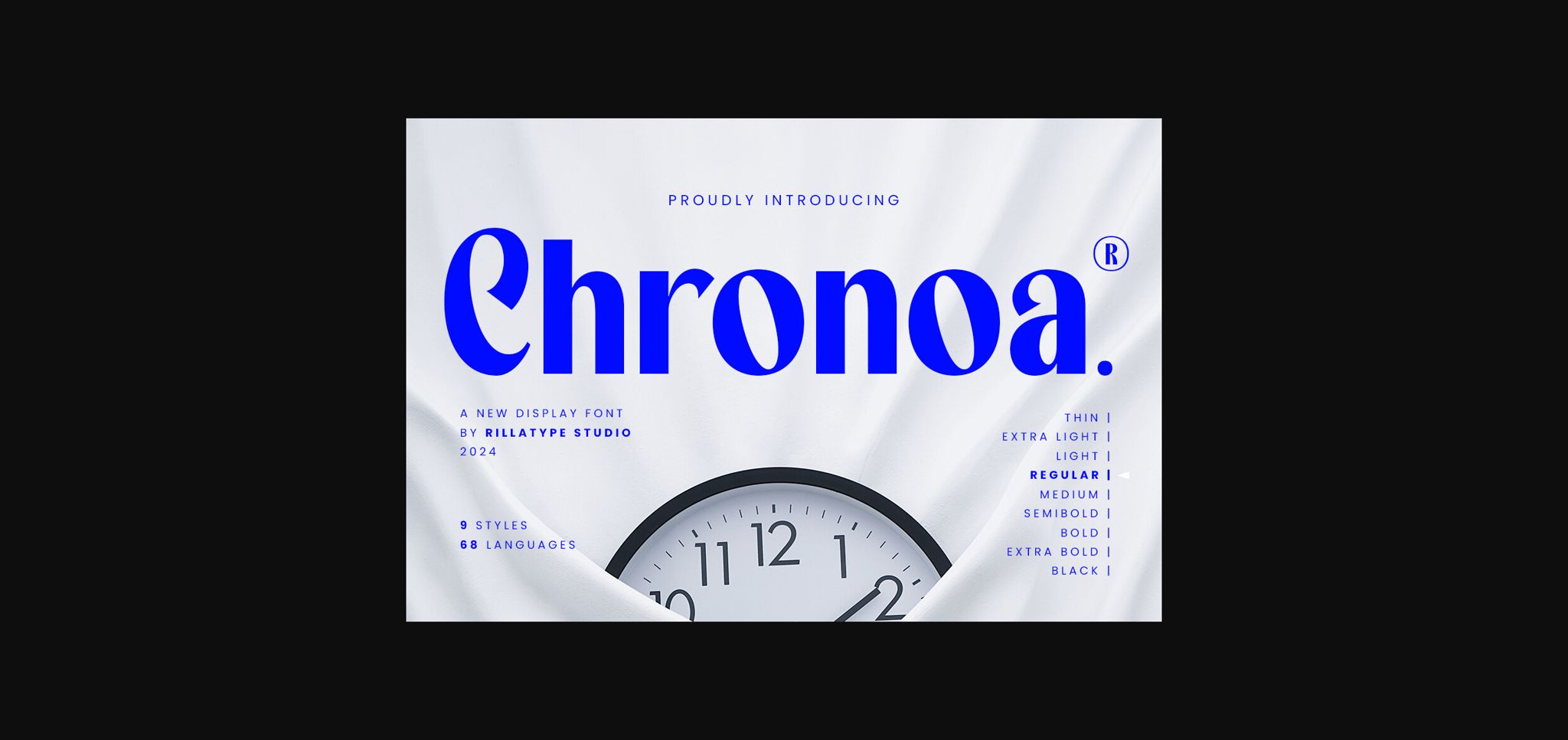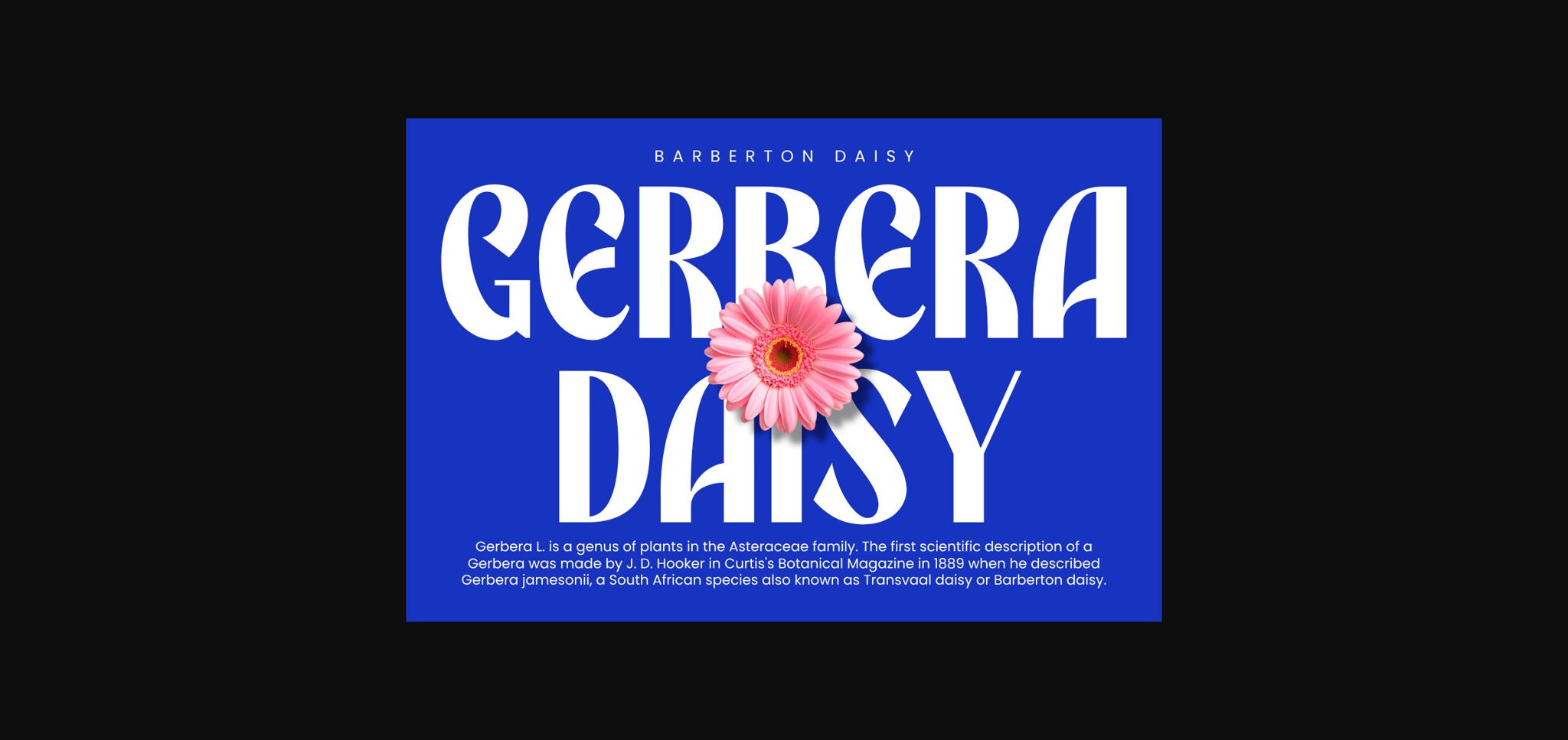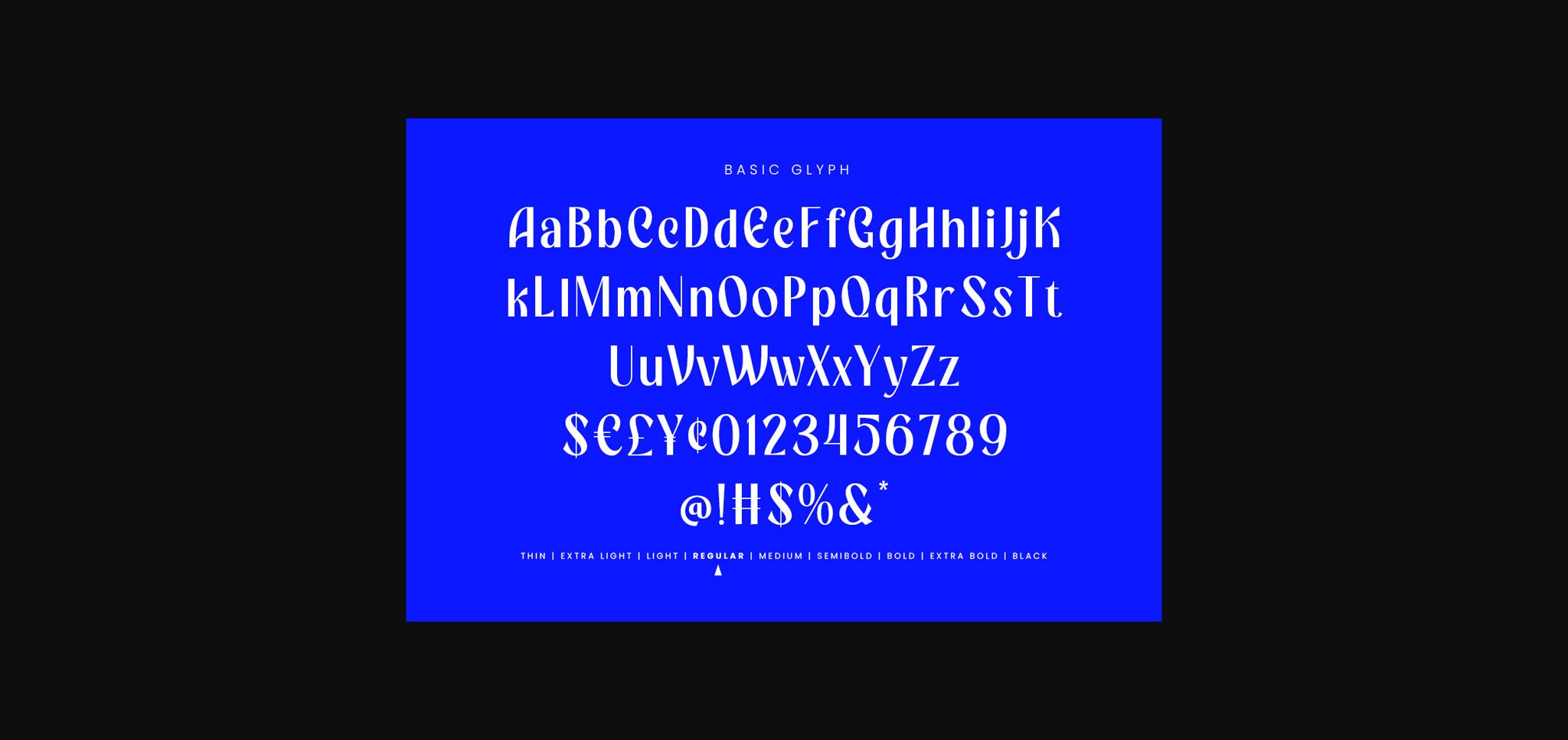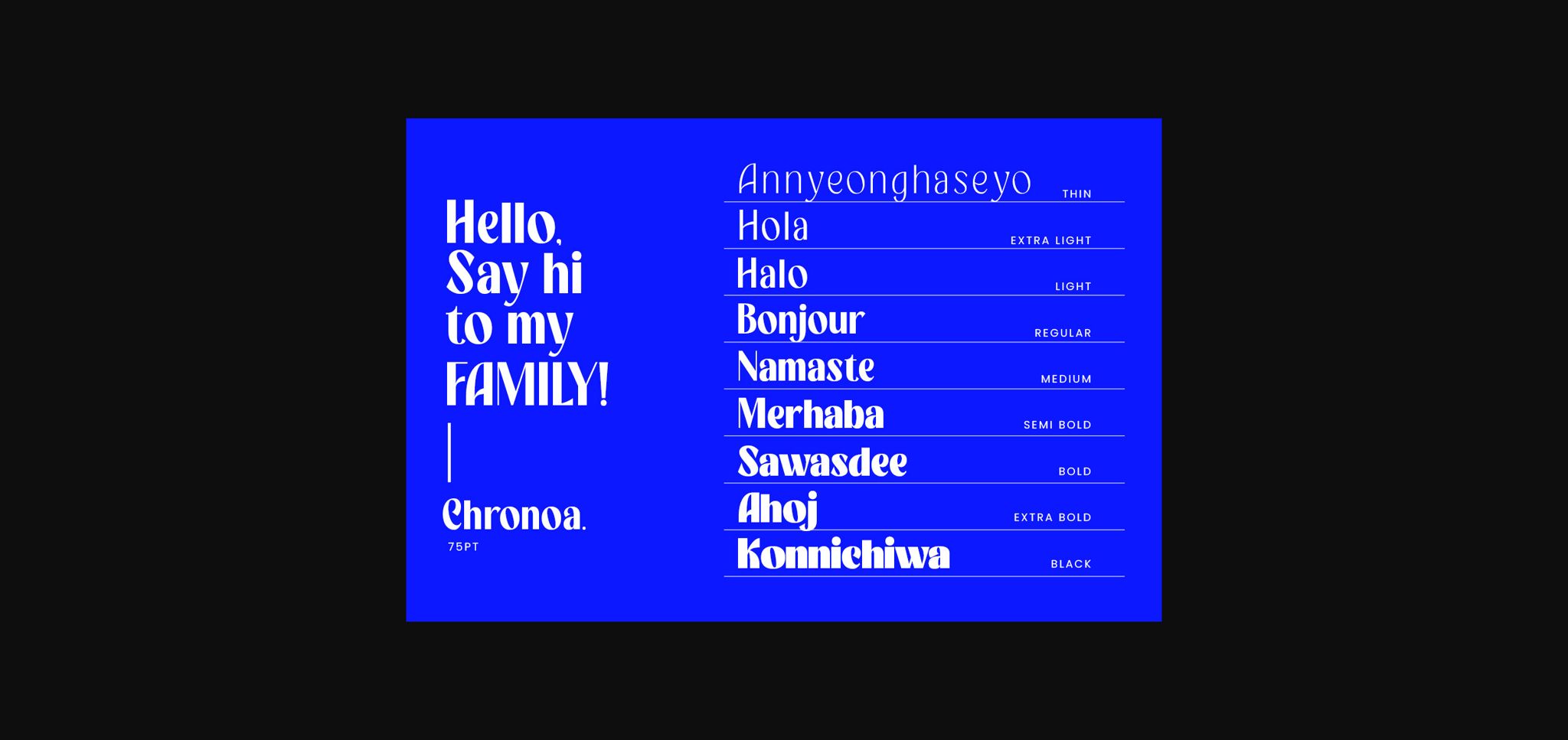
About Chronoa Font
Introducing Chronoa Font Family – a versatile sans-serif typeface that seamlessly blends modern aesthetics with functionality. With its extensive range of styles, including Thin, Extra Light, Light, Regular, Medium, Semibold, Bold, Extra Bold, and Black, Chronoa provides a spectrum of options for creative expression.